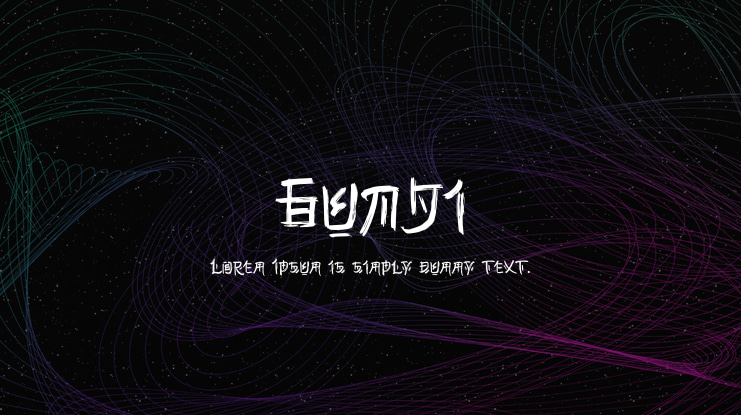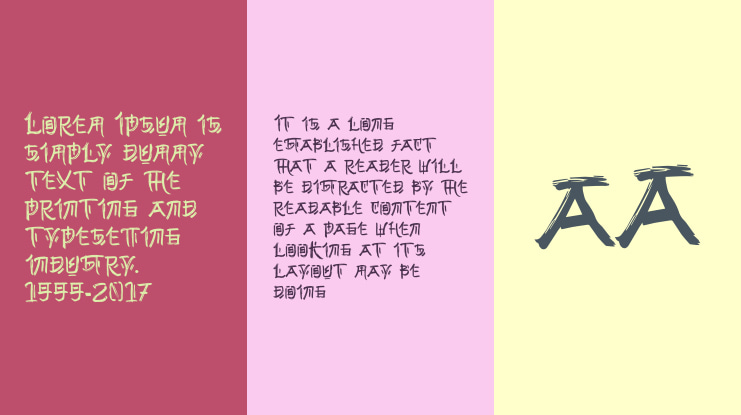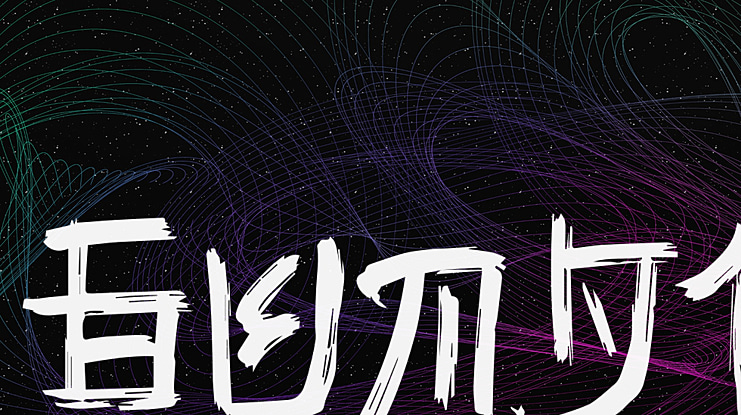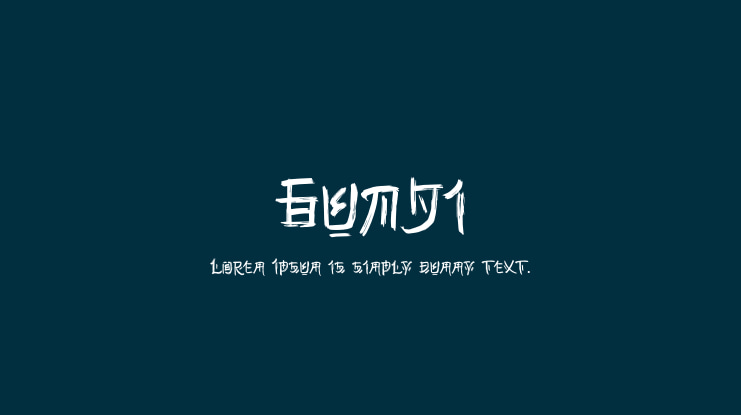
Gunji Font
Gunji is an awesome chinese inspired display font. It has a great readability and will add a striking touch to any design! It will look awesome on any T-shirt, print, or restaurant brand!